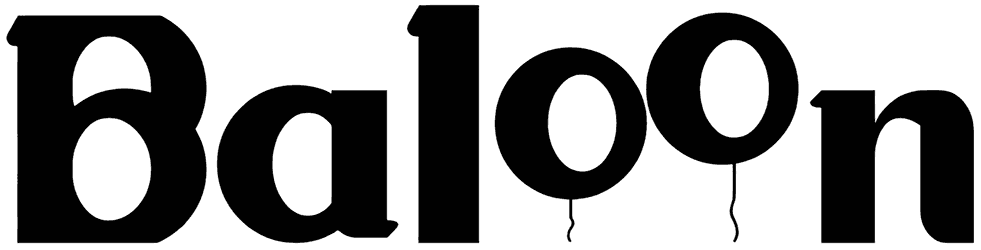
Baloon Font
Baloon is a cartoon font that is masterfully designed with a considerable amount of innovation to become your practical assistant in designing graphic content like book covers, illustrations, brochures, product packaging, and social media posts. Due to its playful style, this balloon font can bring a sense of joy, freshness, drama, and youth to your artwork.